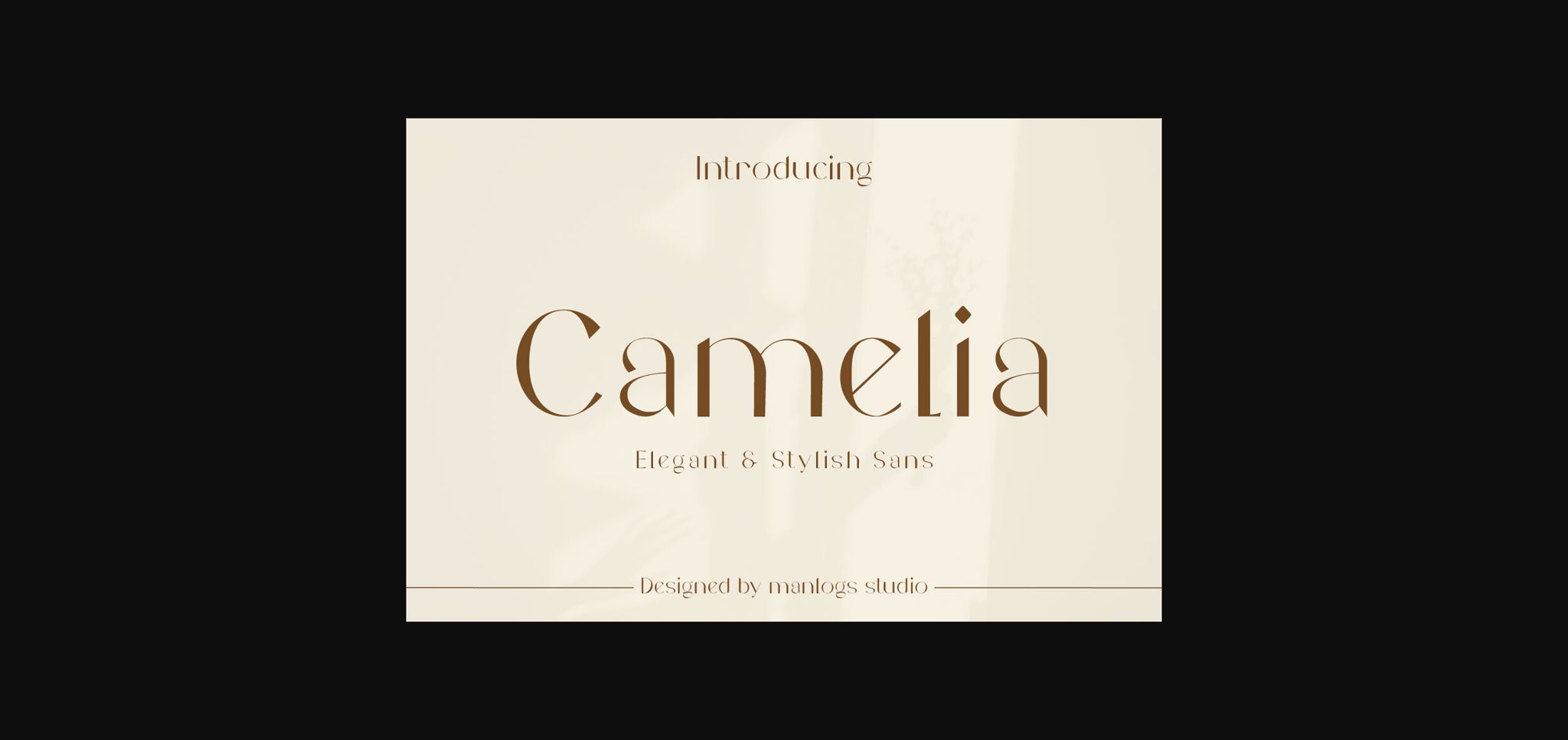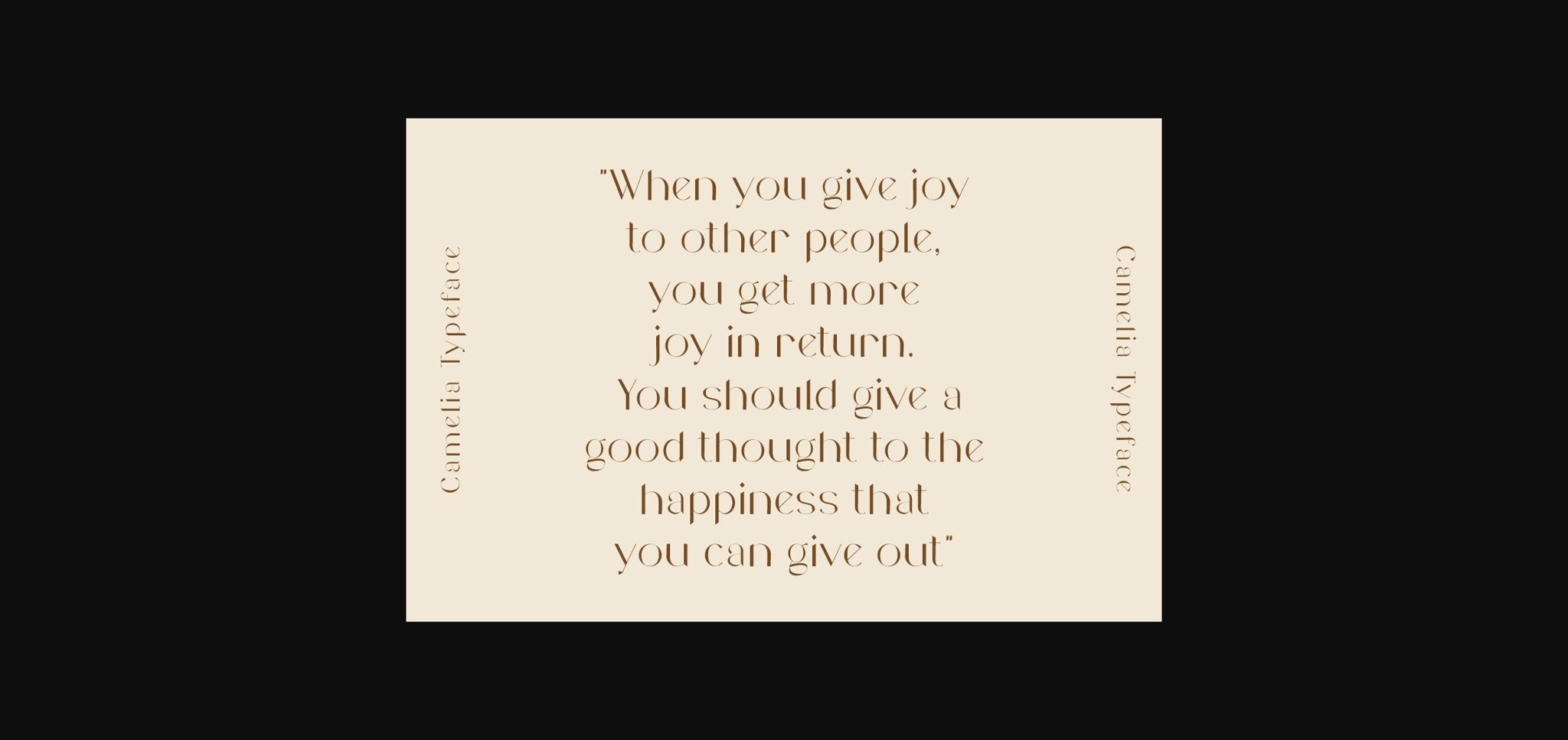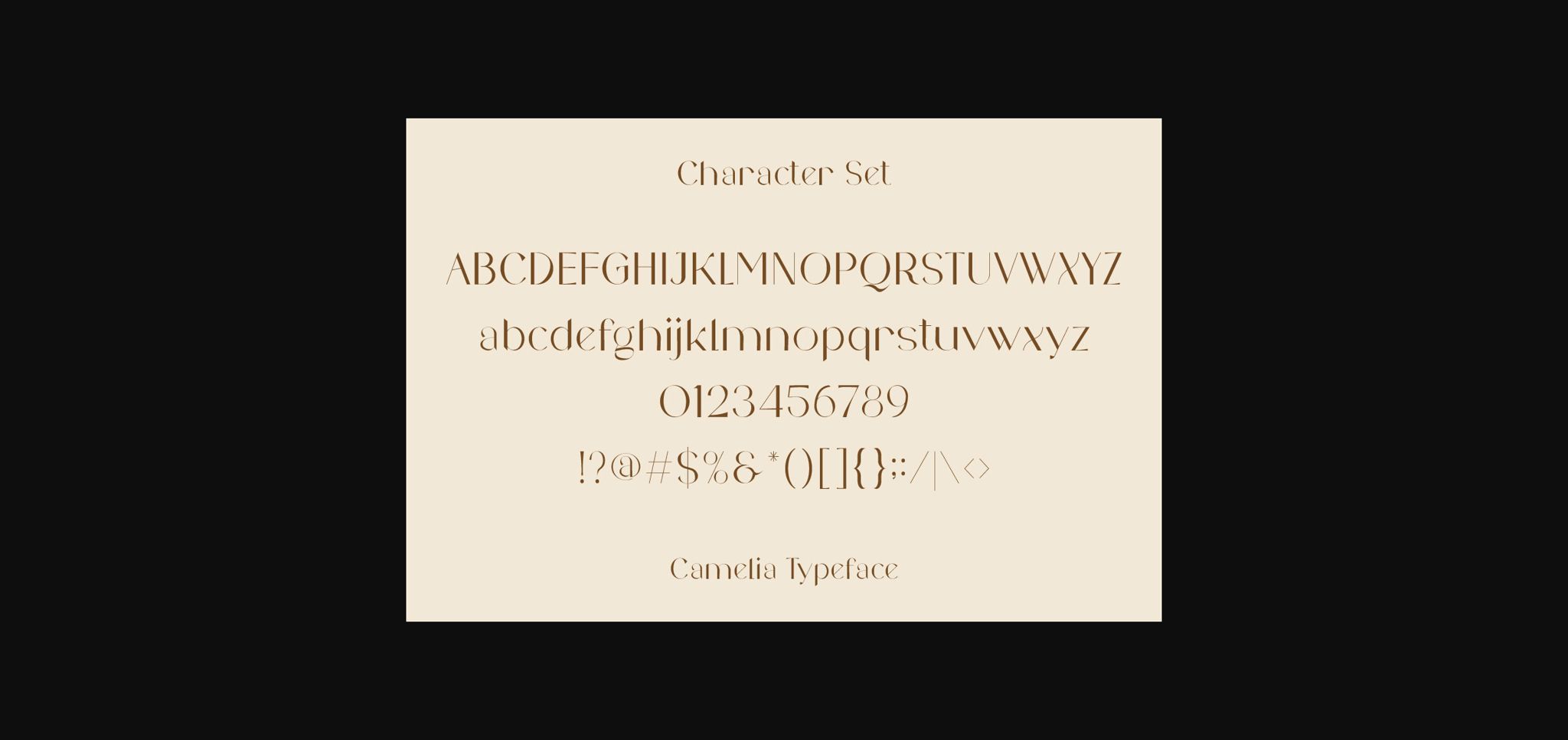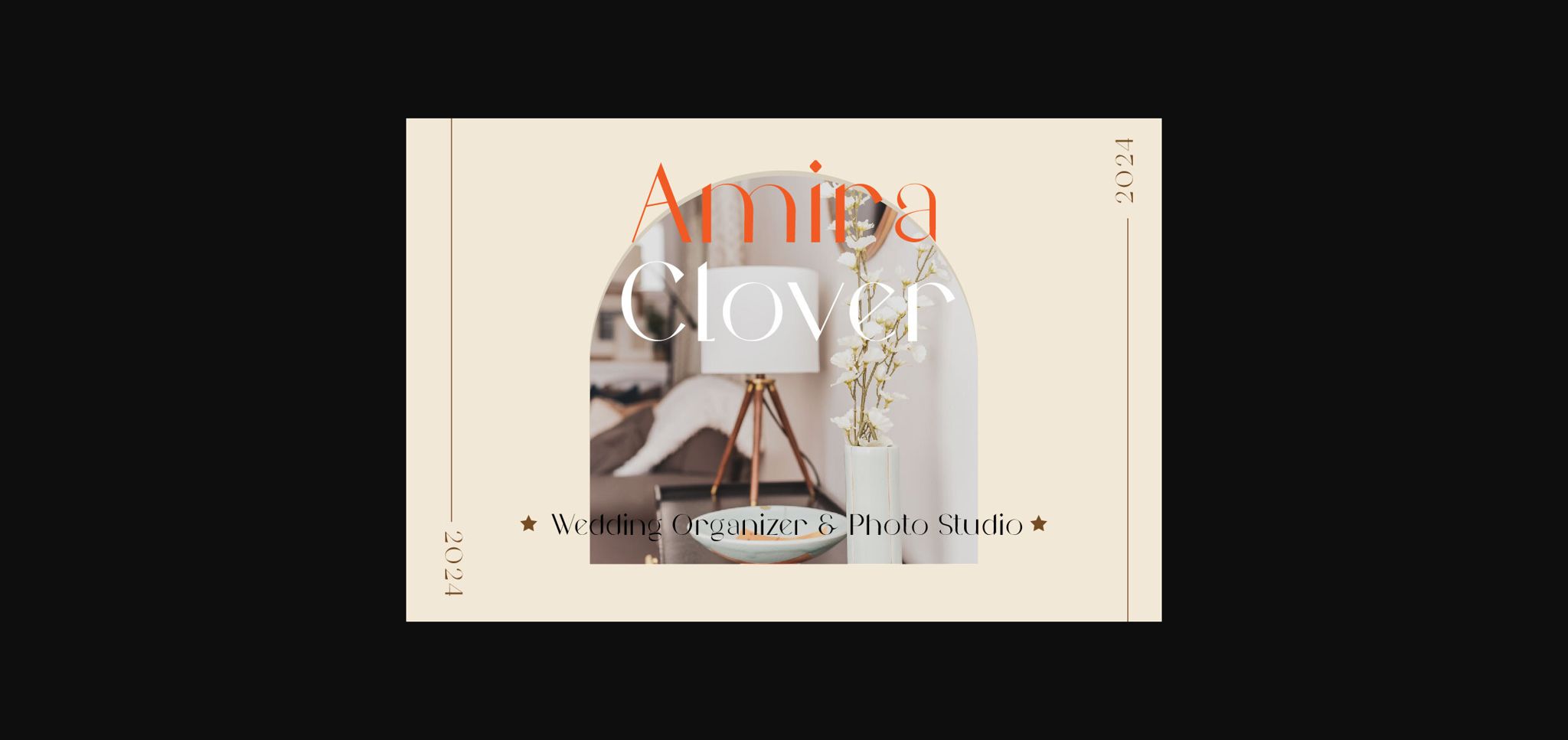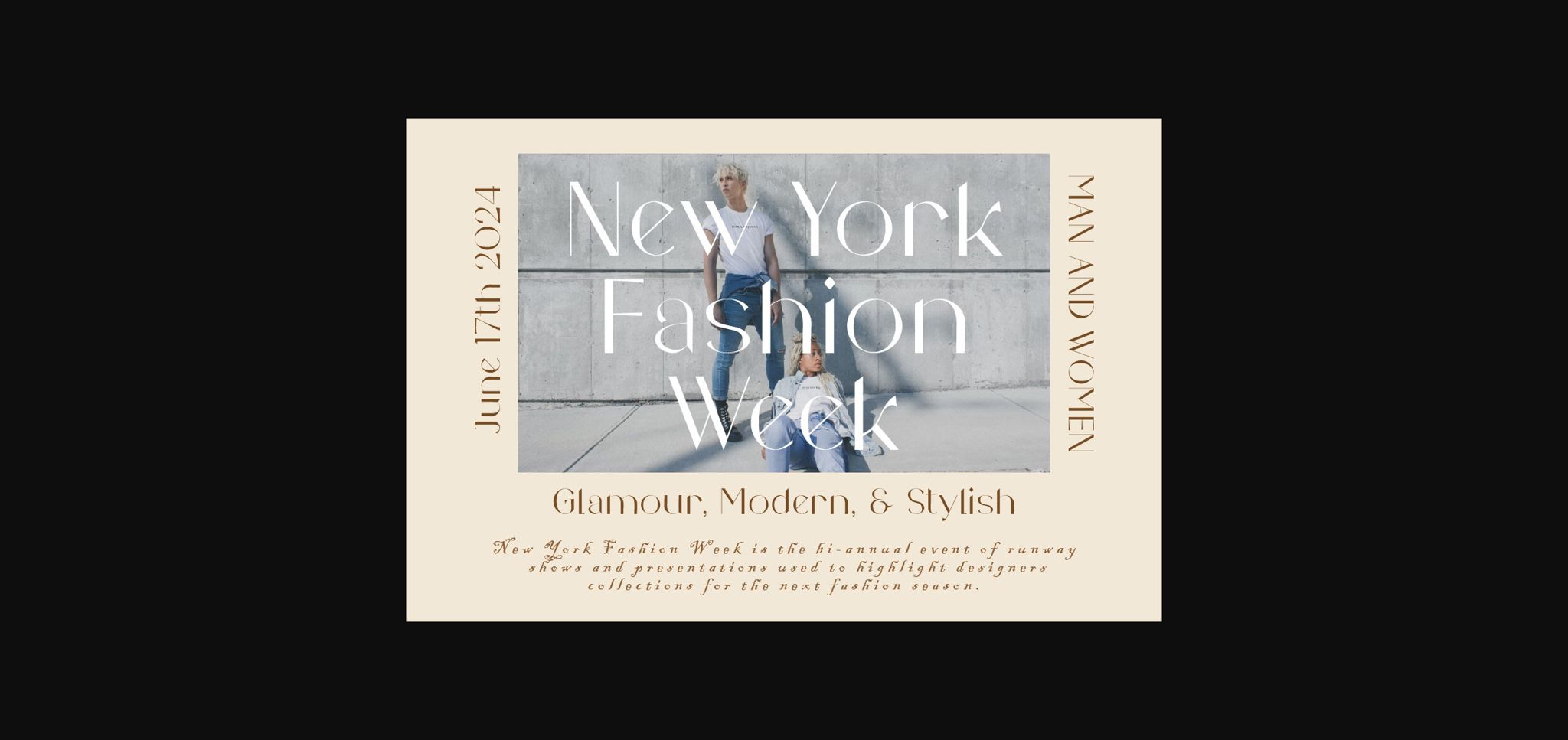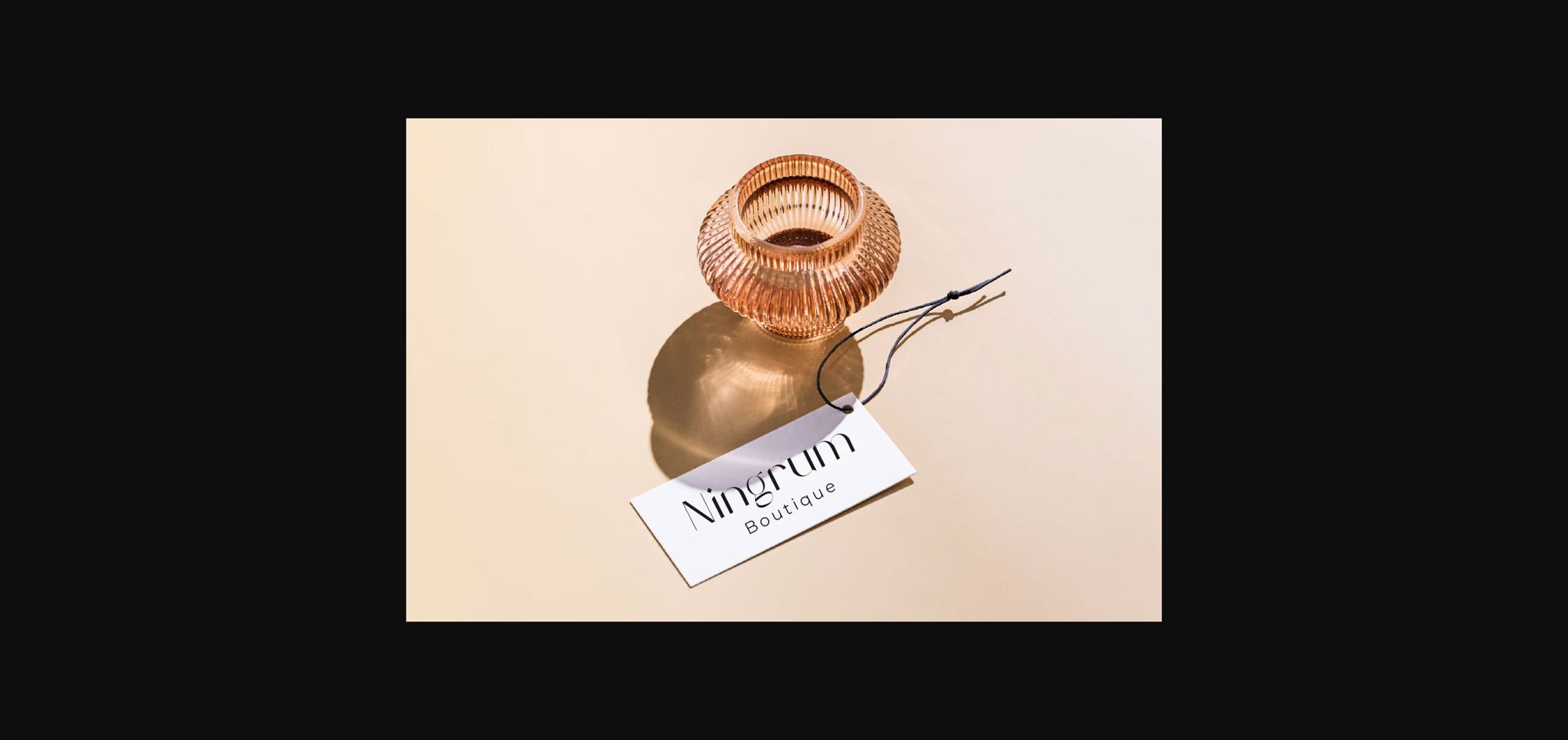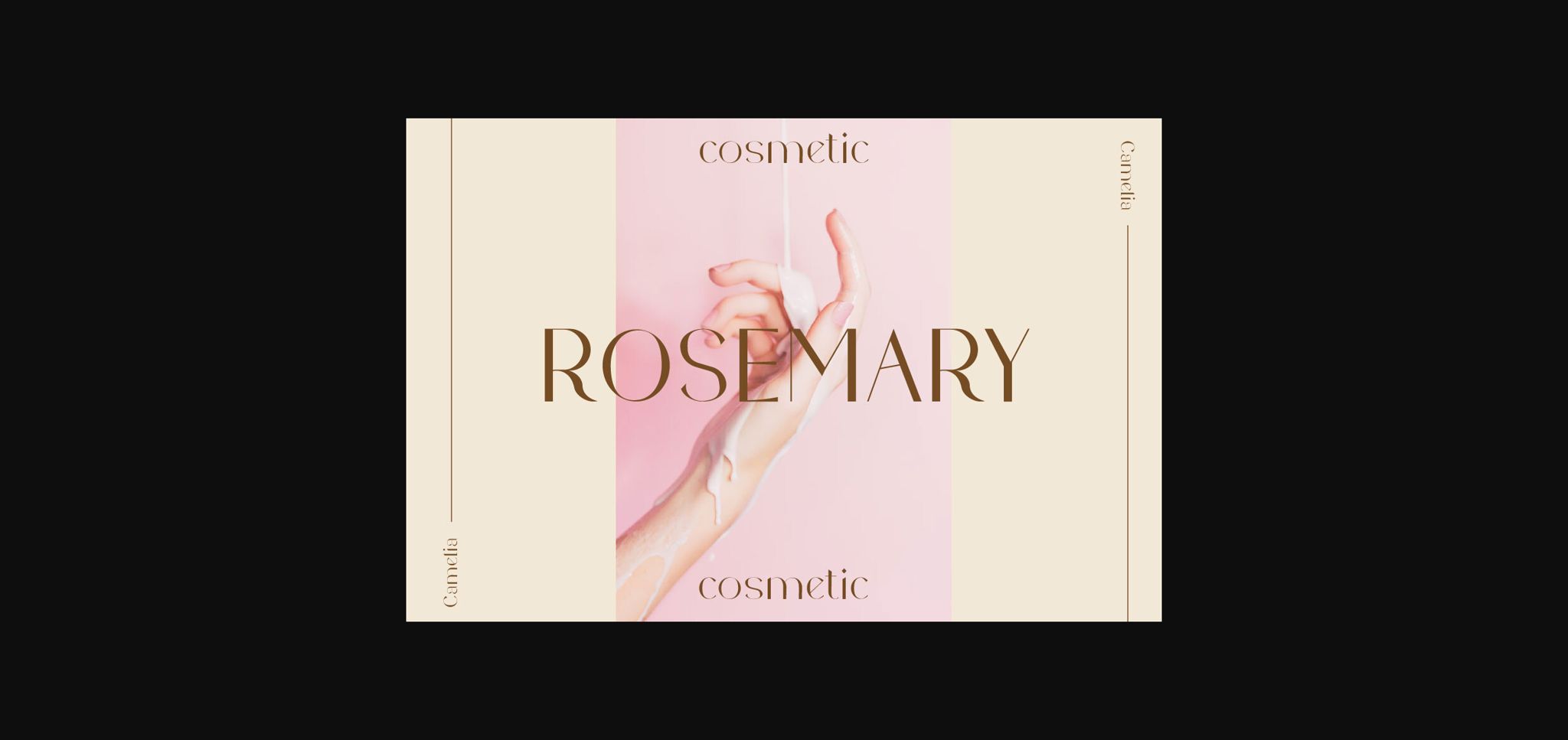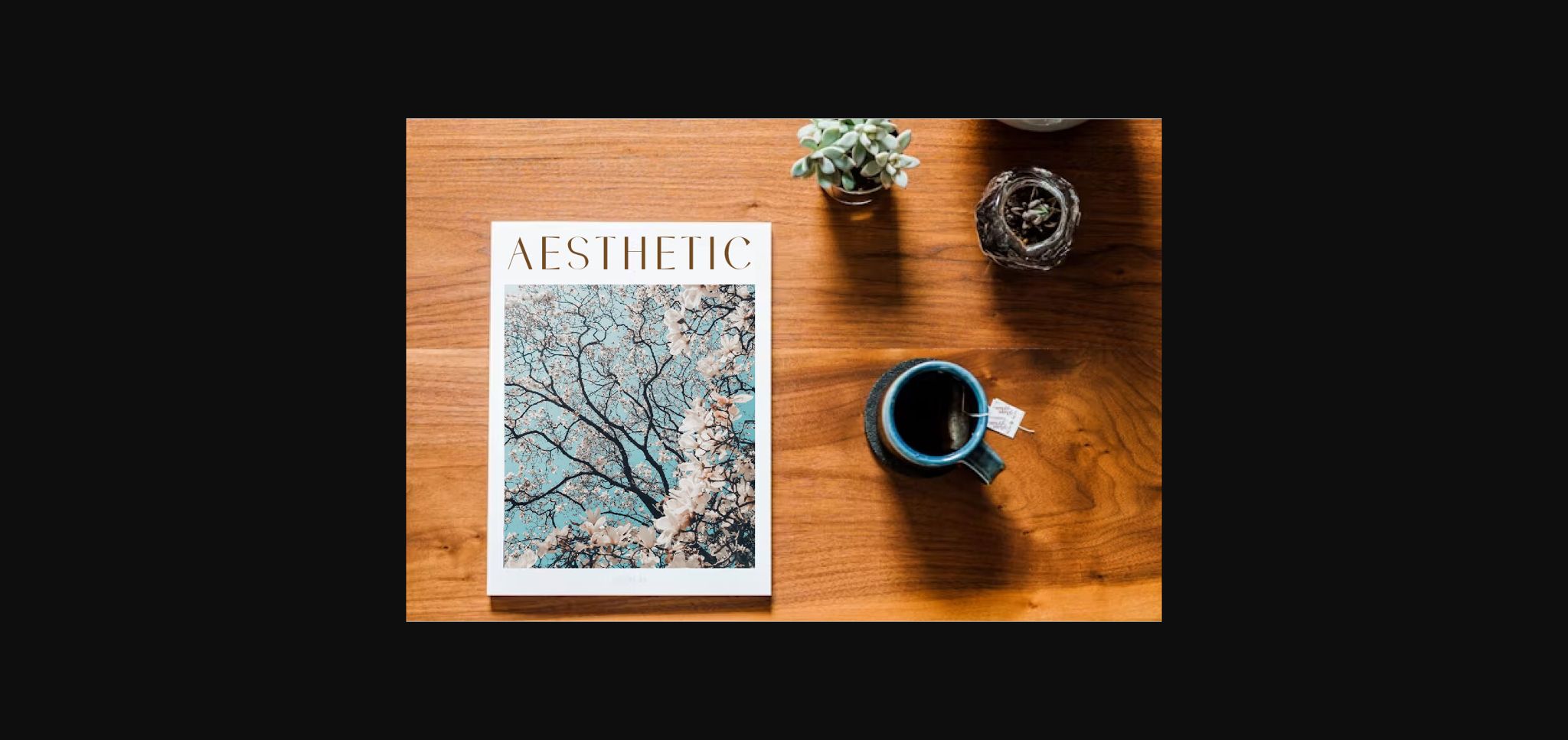
Camelia Font
About Camelia Font
Camelia is a stylish and incredibly elegant sans-serif font. It is defined by smooth curves and is perfect for templates, brochures, videos, advertising branding, logos, invitations, layout design, and more!